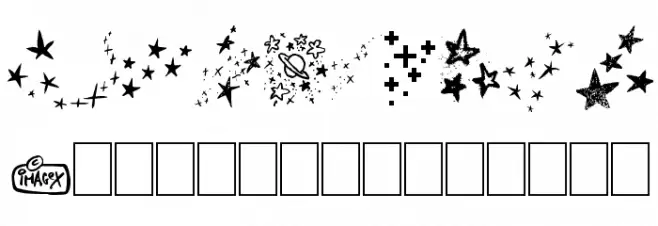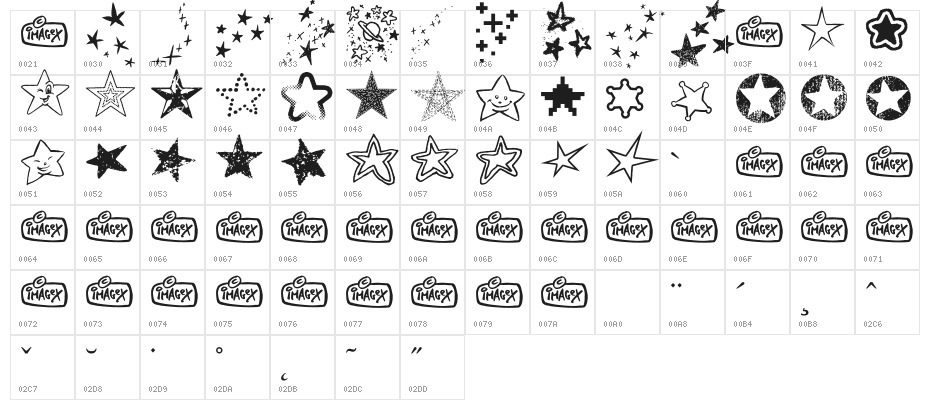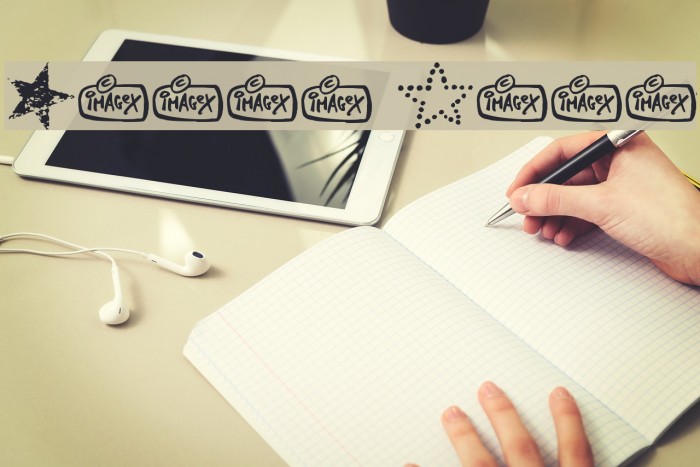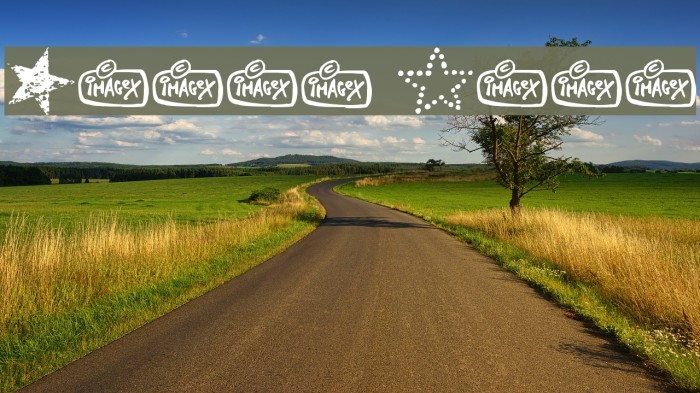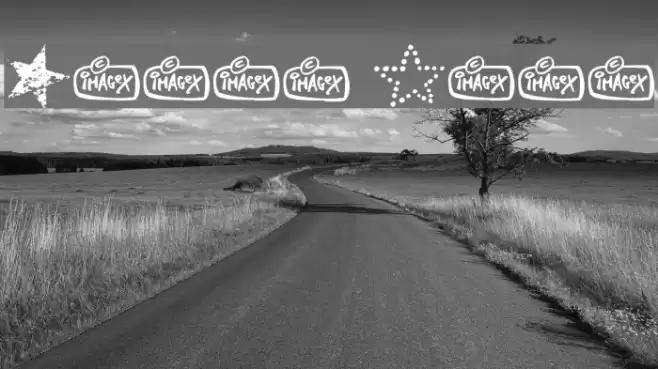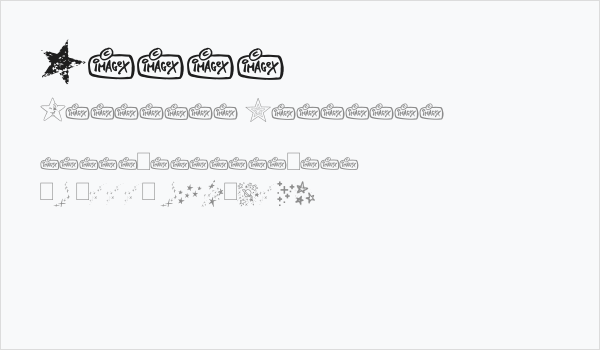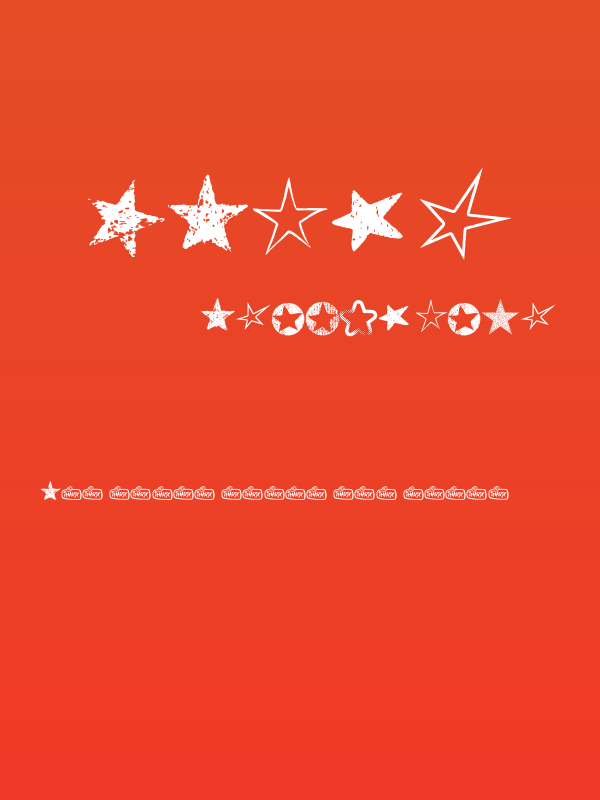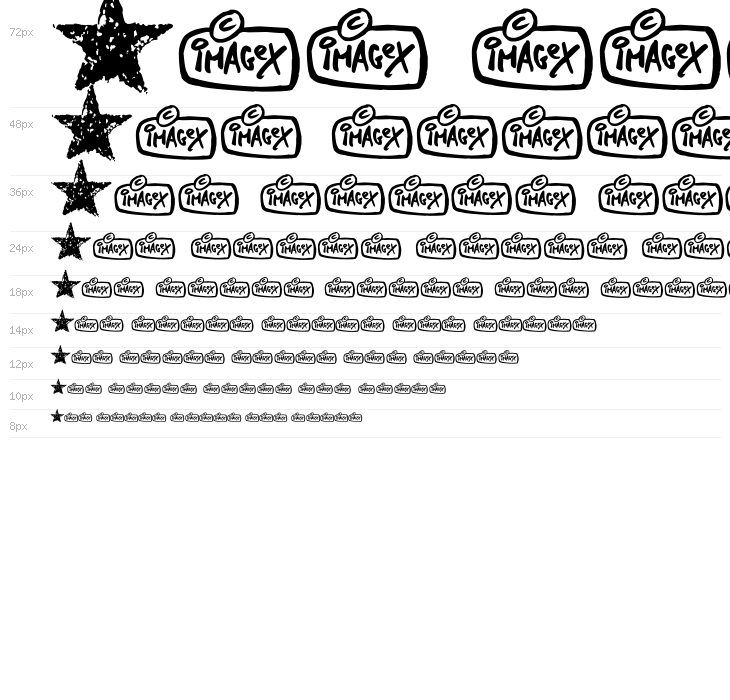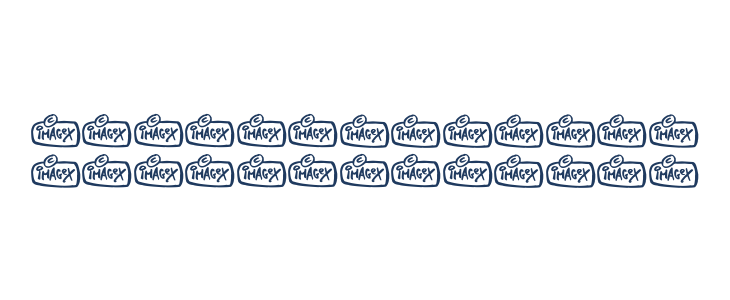
Starz Font
Starz Description
This is not a traditional font but rather a collection of decorative star-themed symbols and patterns. The design includes various star shapes, some filled, some outlined, and others with unique textures or patterns. These elements are playful and whimsical, featuring smiling faces and abstract designs. The set also includes a repeated logo-like element with the word 'IMAGE' inside a stylized shape. The overall style is fun and decorative, suitable for creative projects that require a touch of whimsy and imagination.
| Use Case | Decorative elements, Borders, Creative projects |
| Proposed Projects | Ideal for scrapbooking, children's party invitations, decorative borders, and creative design projects that require a playful and whimsical touch. |